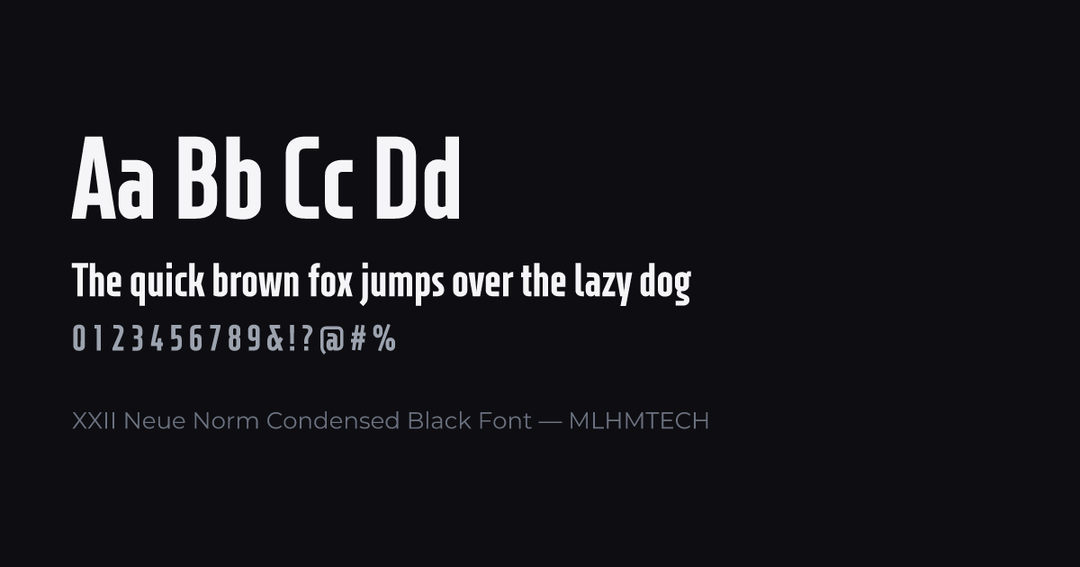
XXII Neue Norm Condensed Black Font
A bold, condensed sans-serif font with a modern, geometric feel. Ideal for impactful headlines and titles in your video projects.
XXII Neue Norm Condensed Black is a striking typeface that combines the efficiency of a condensed font with the weight of a black weight. Its clean lines and geometric structure make it a versatile choice for a wide range of creative projects.
This font is particularly effective for video titles, lower thirds, and motion graphics where space is at a premium but you need to make a strong statement. Its high legibility ensures your message is clear even at smaller sizes.
Whether you're working on a corporate video, a promotional piece, or a personal project, this font adds a professional and contemporary touch. Its bold presence commands attention and elevates your visual content.